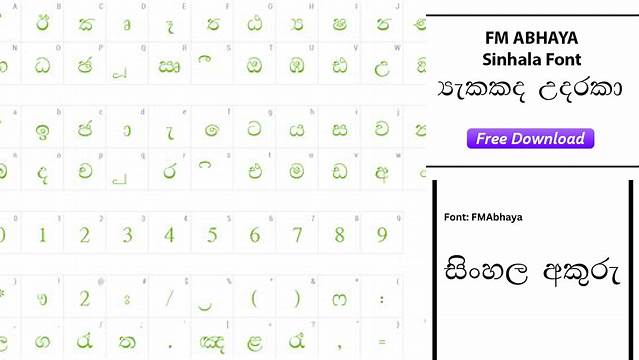
FM Abhaya Font: What's the Buzz?
So, what exactly is the FM Abhaya font? Well, it's a typeface that's become pretty popular, known for its clean lines and readability. It's a great choice for everything from headings and body text to graphic design. It's one of those fonts that just works in a lot of different contexts. The FM Abhaya font is known for its versatility. Whether you're a graphic designer, a student working on a presentation, or just someone who likes to customize their documents, having the right font can make all the difference. It can enhance readability, communicate a certain tone, and give your work a professional edge. Choosing the right font can be a game-changer. You might be wondering where you can find it, and more importantly, if you can get your hands on it without spending any money. Luckily, there are options for FM Abhaya font free download that we'll explore in this guide. Keep reading to discover how to get this font and how to install it, so you can start using it immediately. The font family usually includes different weights and styles, such as regular, bold, italic, and sometimes even condensed versions. This variety lets you create more dynamic and visually interesting designs. The font’s design is modern and user-friendly, making it an excellent choice for both print and digital media. This article aims to guide you through every step of finding the FM Abhaya font free download and installing it on your Windows 10 system. Having the right font can drastically change how your work appears. It can influence how readers perceive your message, and with the FM Abhaya font, you get a tool that’s both beautiful and effective. The ease of the installation process is also a huge plus, meaning you don't need to be a tech expert to start using it.
The Aesthetics and Usability of FM Abhaya Font
The FM Abhaya font is a great choice because of its design and usability. It has clean, straightforward lines that look great in all sorts of projects. Its design makes your text easy to read, whether it's on paper or a screen. This is very important if you want to communicate your message effectively. The font comes with different styles, like regular, bold, and italic. These give you many options for making your work look better. For example, you can use bold for important headings or italic to emphasize certain words. The font's modern look makes it perfect for websites, presentations, and other digital content. It fits right in with the design trends of today. But, it's not just about looks; the FM Abhaya font also works well in print, making it a versatile choice for projects. Because the font looks good in both digital and print formats, it's useful for lots of different types of projects. With the FM Abhaya font, your work will have a professional and polished look. This font has a certain charm that makes it suitable for everything from corporate materials to creative projects. It helps you make your work stand out from the crowd. It's designed to be easy to read, making it a perfect choice for both long texts and short headings. Its readability makes it a perfect font to get and use. It can help boost how professional your projects look. When you select FM Abhaya font free download, you are choosing a font that combines style with ease of use.